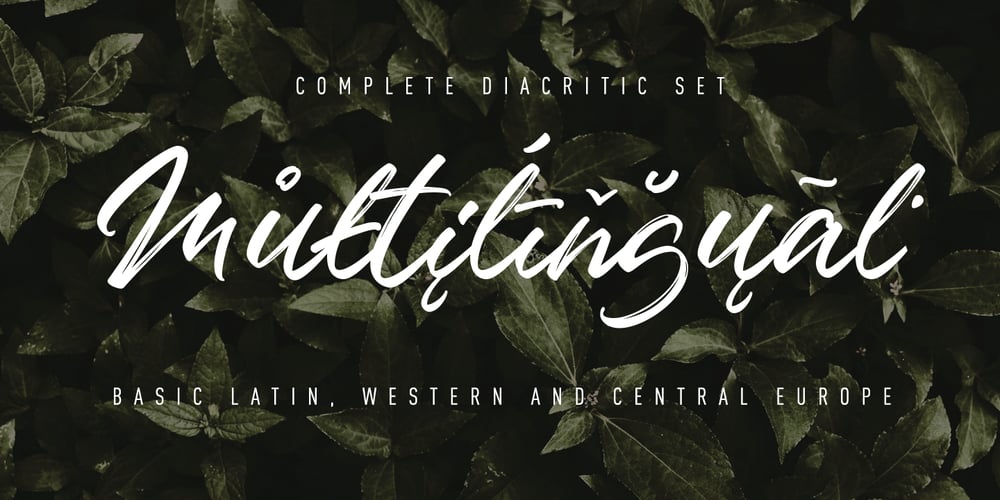
Rotten Mangos
Rotten Mangos font
Rotten Mangos Font Family was designed by Clément Nicolle and published by StereoType Fonts. Rotten Mangos contains 1 styles and family package options. Badass Moon is a rough script font made from a fudenosuke brush pen with a hand lettering style. It includes standard Multilingual support and OpenType features such as Standard Ligatures and Stylistic Alternates. You can use Badass Moon for a wide range of projects : logotype, Instagram and social media design, apparel, packaging, poster, magazine and book cover, advertising design, and any design that will make you happy to create! Make sur you can access all those alternates and ligatures by using a program that supports OpenType features : Adobe Illustrator CS, Adobe Indesign & CorelDraw X6-X7… If you need any help or advice, you can contact me at contact@stereo-type.fr I’ve made this font with love, I hope you’ll love to use it!!